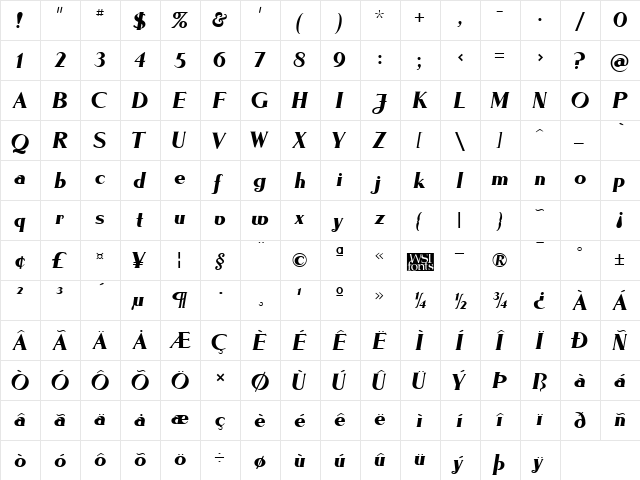
Lyndsey Regular
Design Context for Lyndsey Typeface
Lyndsey offers clean, dependable letterforms without strong stylistic allegiance, making it a practical choice for designers who need flexibility.